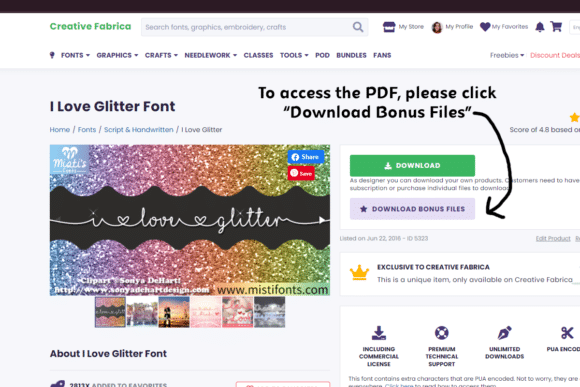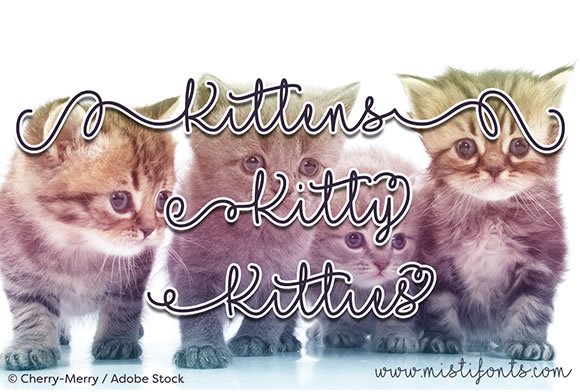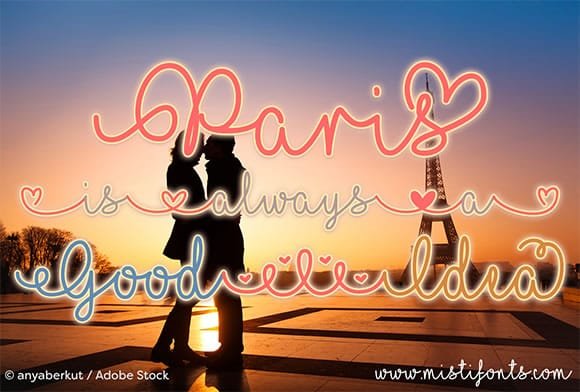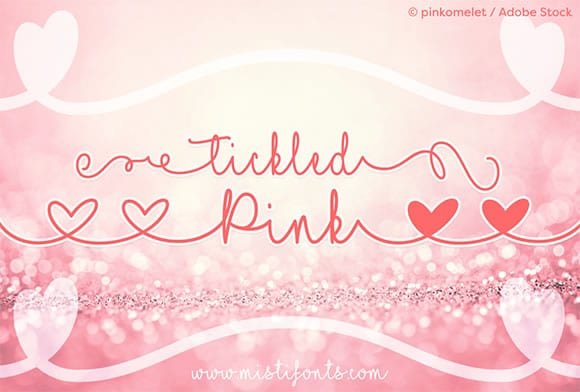
I Love Glitter Font
Misti
Introducing the MF ‘I Love Glitter’ font, your new secret weapon for standout crafting projects. This unique, eye-catching font is perfect for adding a touch of sparkle and creativity to any design.